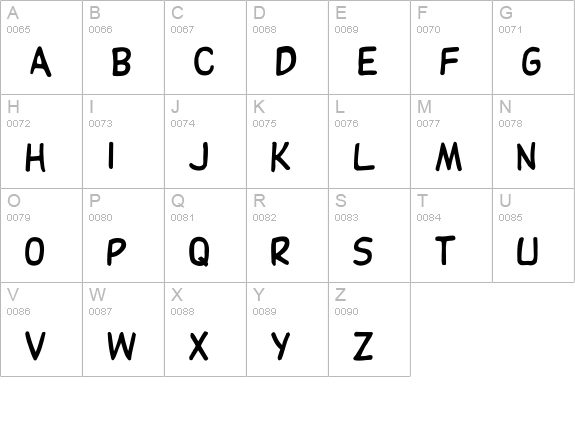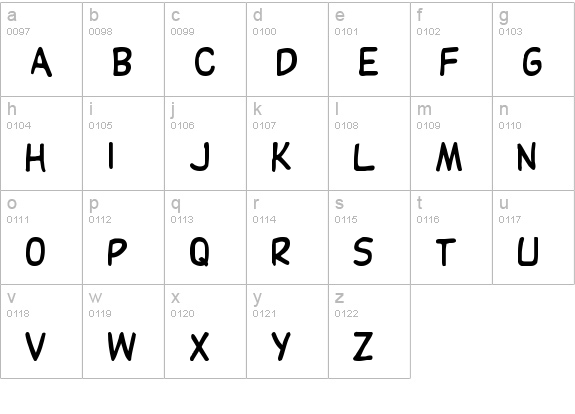
DupuyHeavy Font Details
DupuyHeavy font is a bold and striking typeface that exudes strength and character. With its thick lines and robust appearance, it is perfect for making a statement in headlines, logos, and other design projects that require a powerful presence. The font's distinct style adds a touch of sophistication and professionalism to any layout. What makes DupuyHeavy font even more appealing is that it is available for free download at FontsMarket.com. This means that you can easily access this high-quality typeface without having to worry about any costs. Whether you are a designer looking to enhance your projects or an individual seeking to elevate your personal creations, DupuyHeavy font is a versatile choice that will not disappoint. Download it today and add a touch of bold elegance to your designs!